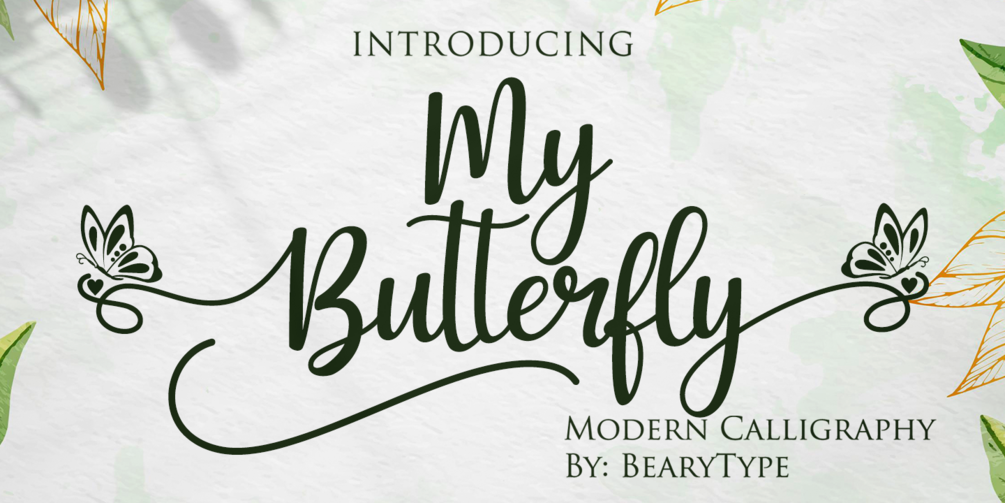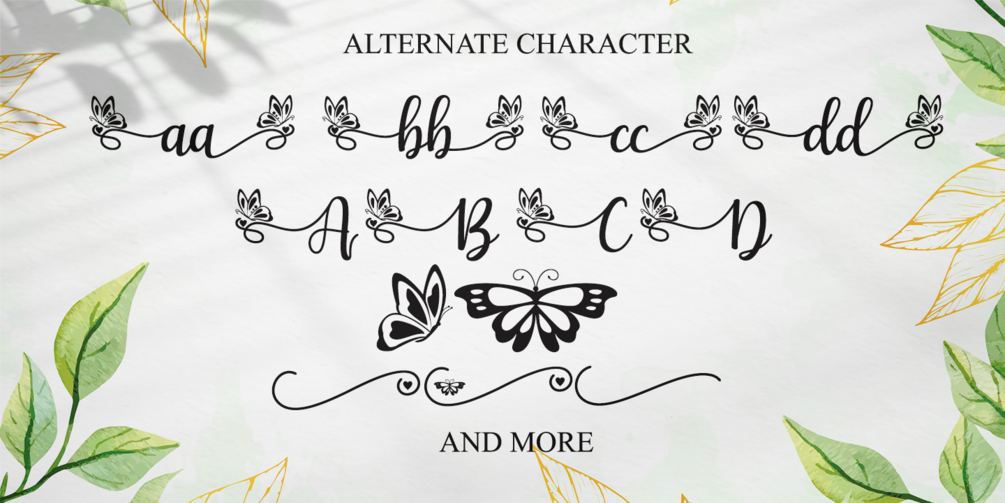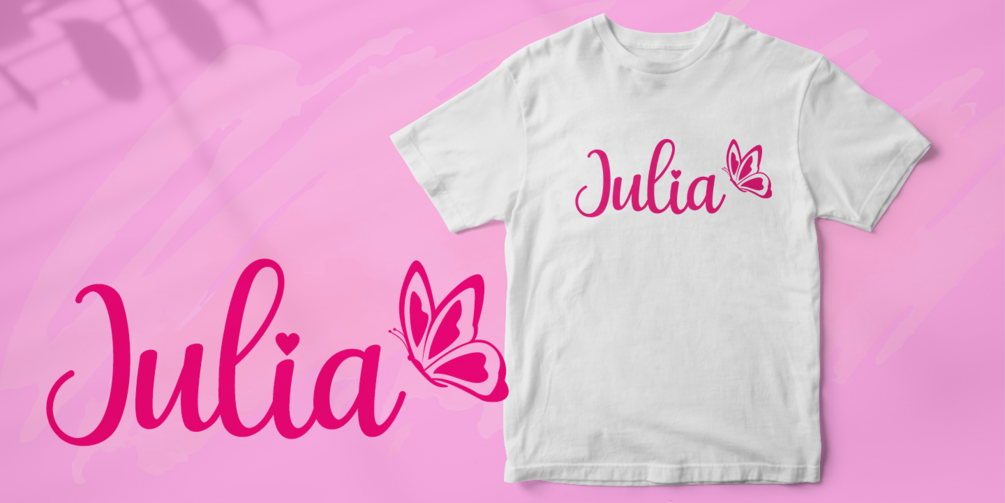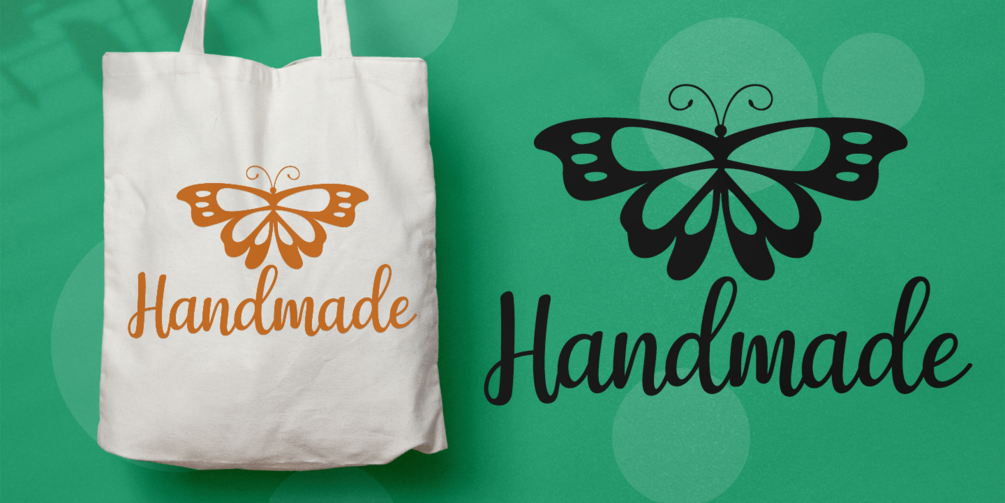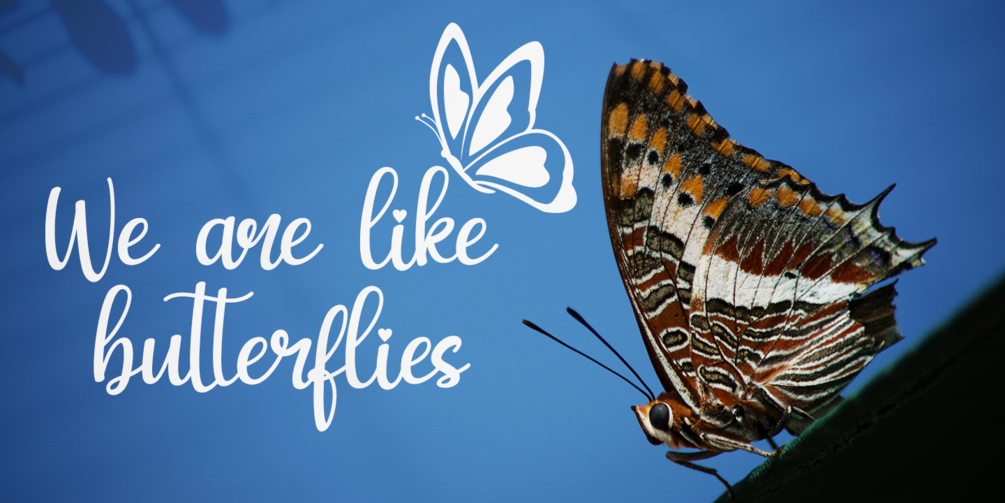
My Butterfly
Let your words flutter with elegance! ✨
My Butterfly is an amazing hand-lettered font designed to look naturally beautiful and irresistibly charming. Every single letter is carefully crafted to give your text a smooth, graceful, and artistic flow — perfect for adding a personal touch to any design.
This font comes packed with 288 glyphs, including 81 stunning alternates with lovely swashes and 2 adorable butterfly alternates to make your text truly stand out. With 60+ extended Latin characters, My Butterfly supports multiple languages seamlessly.
Whether you’re working on invitations, logos, branding, social media posts, quotes, or poster designs, My Butterfly will turn your creative idea into a breathtaking masterpiece. 💫
- Elegant Ligatures
- Gorgeous Alternate Characters
- Multilingual Support
My Butterfly isn’t just a font — it’s a statement of beauty, warmth, and creativity. Let your designs spread their wings and shine with My Butterfly today! 🦋